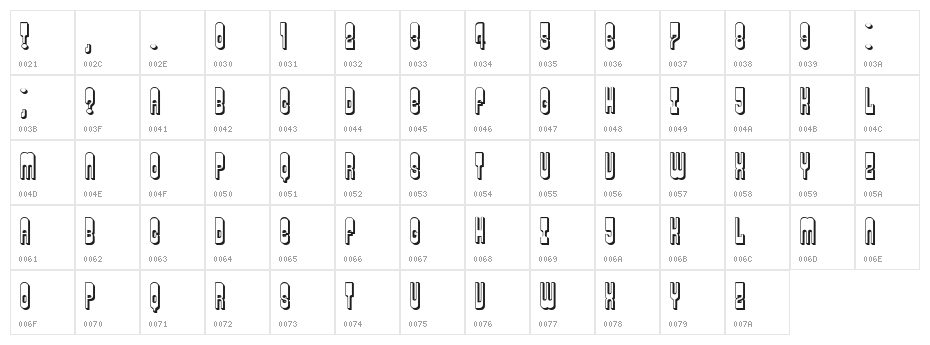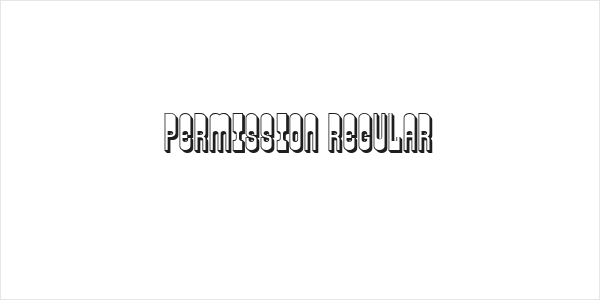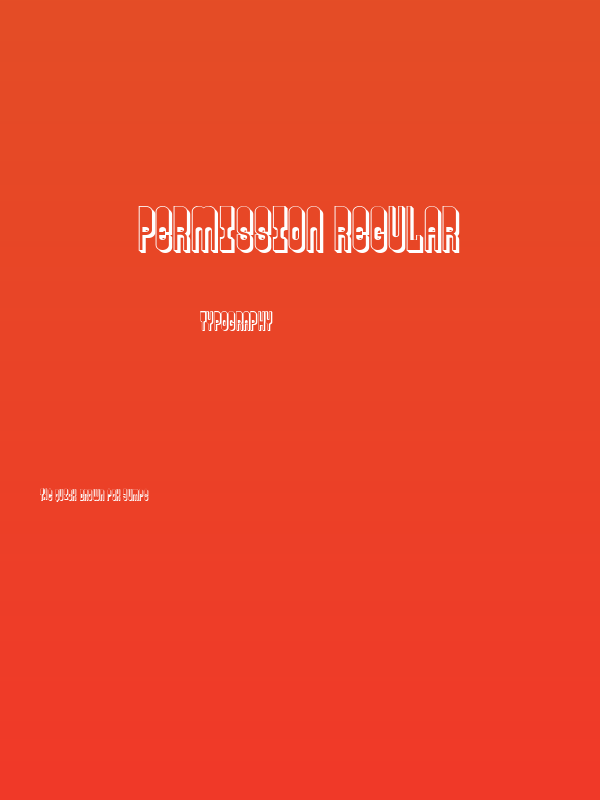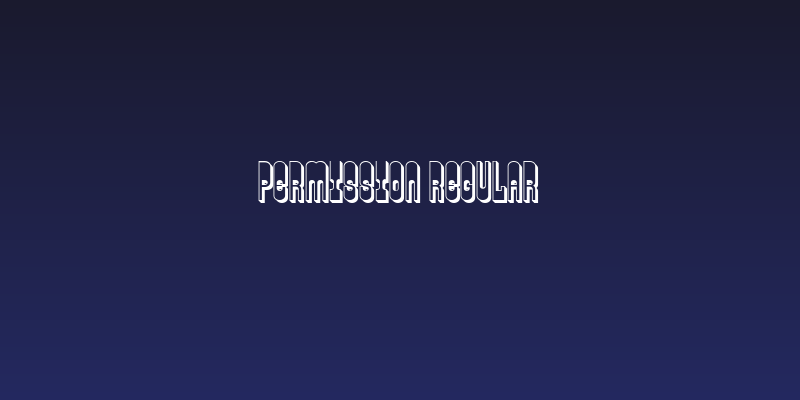
Permission Regular Font
Permission Regular Description
This font features a bold and striking design with a three-dimensional effect, created by its thick, outlined characters. The uppercase letters are uniform in height, with a geometric and blocky appearance that gives a sense of strength and stability. The lowercase letters maintain the same boldness, ensuring consistency across the typeface. Numbers and special characters are designed to match the overall style, making it versatile for various uses. The font's unique style is eye-catching and suitable for projects that require a strong visual impact.
| Proposed Projects | Ideal for posters, logos, headlines, and any design requiring a bold statement. |